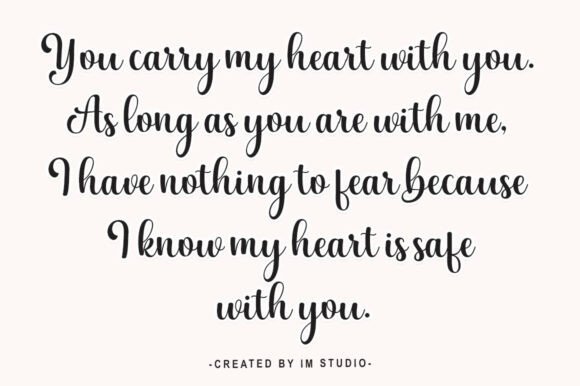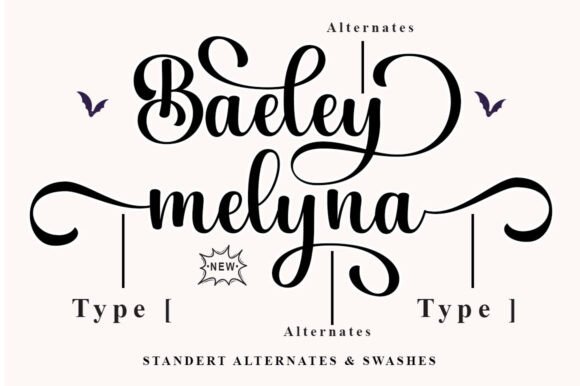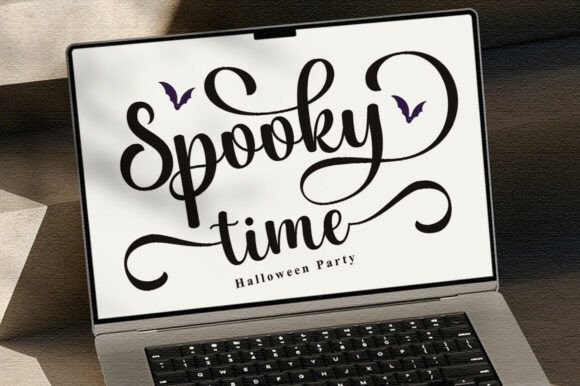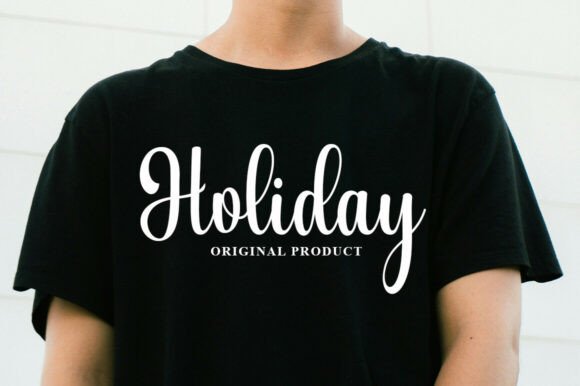
Spooky Halloween Font
Discover the entrancing charm of Spooky Halloween, a font delicately entwined with softness and elegance. Infused with gentle strokes and a feminine touch, this exquisitely conceived font has the power to transform any design endeavor into a masterpiece.
Perfect fit for branding purposes, compelling titles, captivating wedding designs, enchanting invitations, standout signs, unique logos, sophisticated labels, and beyond, let Spooky Halloween be the magic touch your creation needs.